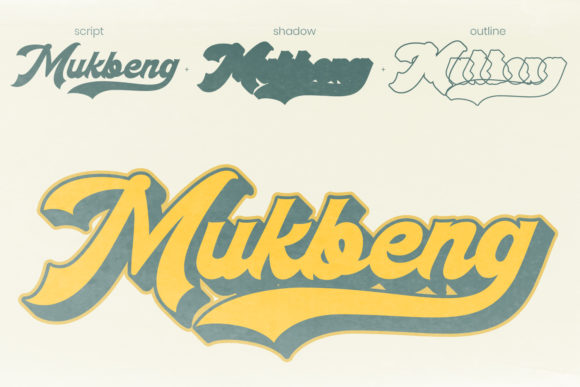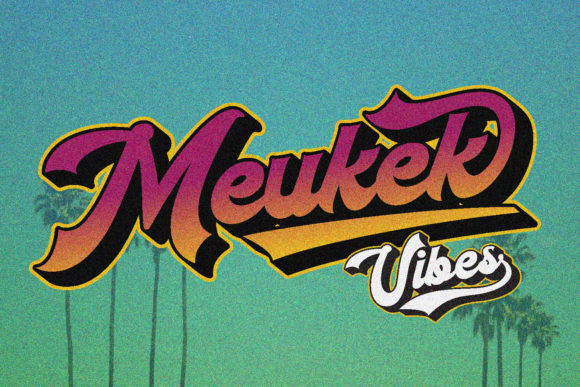
The Mukbeng Font
db-ku.com - Script & Handwritten -- Mukbeng Script is a bold script layered with outlines and extrusions. Mukbeng is very inspired by the famous retro typographical design of the late 60s to 70s. Made in combination with hand letters, it comes with dramatic movements and it’s great for subsequent creative projects that require a retro vibe or a modern twist.